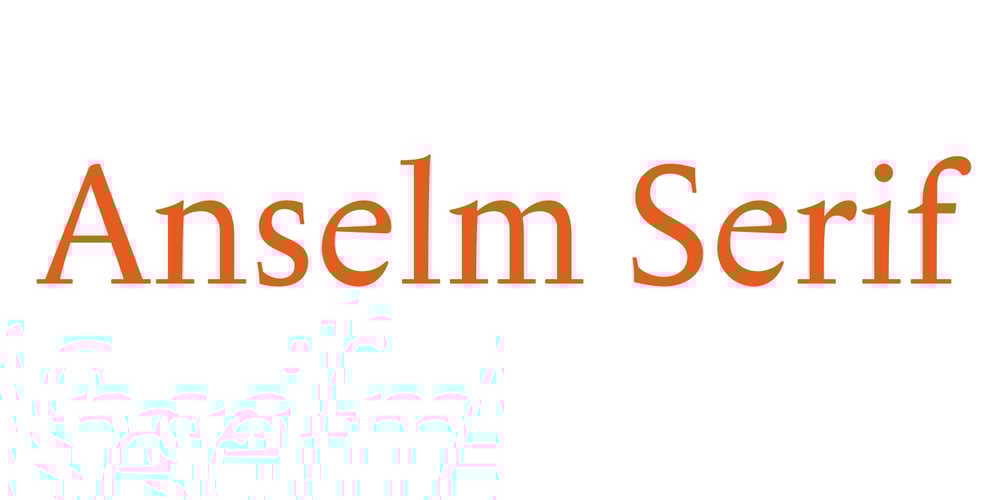
Anselm Serif Font Family was designed by František Štorm and published by Storm Type Foundry. Anselm Serif contains 11 styles and family package options. One of the good practices of today’s type foundries is that they release their type families as systems including both serif and sans serif type. Usually, the sources of inspiration need to be well tried with time and practice, since production of a type family is such a laborious and complex process. From the beginning, it needs to be clear that the result will be suited for universal use. Such systems, complete with the broad, multi-lingual variations permitted by the OpenType format, have become the elementary, default instrument of visual communication. Non-Latin scripts are useful for a wide scope of academic publications, for packaging and corporate systems alike. And what about outdoor advertisement designated for markets in developing countries? Cyrillics and Greek have become an integral part of our OpenType font systems. Maybe you noticed that the sans serif cuts have richer variety of the light – black scale. This is due to the fact that sans serif families tend to be less susceptible to deformities in form, and thus they are able to retain their original character throughout the full range of weights. On the other hand, the nature of serifed, contrasted cuts does not permit such extremes without sacrificing their characteristic features. Both weights were drawn by hand, only the Medium cut has been interpolated. Anselm Ten is a unique family of four cuts, slightly strengthened and adjusted for the setting in sizes around 10 pt and smaller, as its name indicates. The ancestry of Anselm goes back to Jannon, a slightly modified Old Style Roman. I drew Serapion back in 1997, so its spirit is youthful, a bit frisky, and it is charmed by romantic, playful details. Anselm succeeds it after ten years of evolution, it is a sober, reliable laborer, immune to all eccentricities. The most significant difference between Sebastian/Serapion and Anselm is the raised x-height of lowercase, which makes it ideal for applications in extensive texts. Our goal was to create an all-round type family, equally suitable for poetry, magazines, books, posters, and information systems.